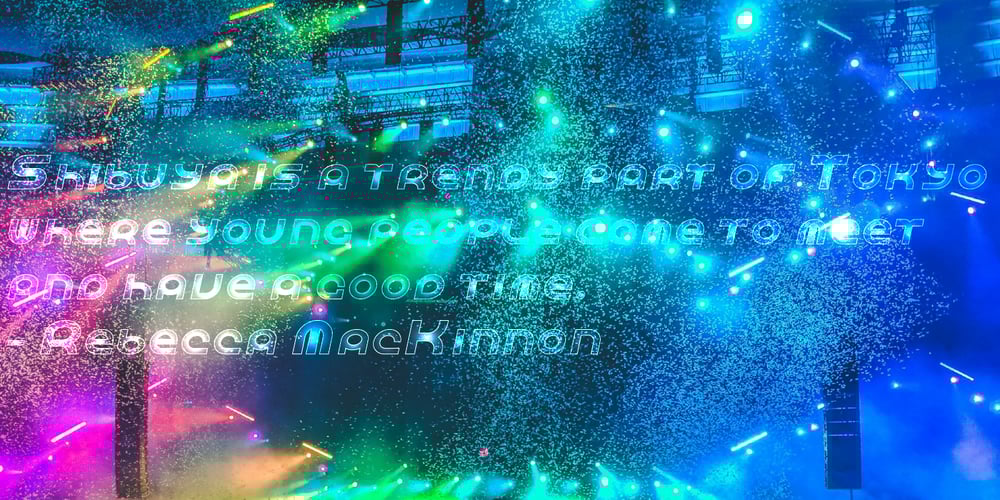
Shibuya Dancefloor Font Family was designed by Rob Barba and published by Megami Studios. Shibuya Dancefloor contains 12 styles and family package options. Inspired by Rob’s years of living in Japan, Shibuya Dancefloor is an expanded version of an earlier font that we did, adding hiragana and katakana to the mix. It’s perfect for anime artwork, sci-fi lettering or even just making flyers for that party you’re planning down in Roppongi!